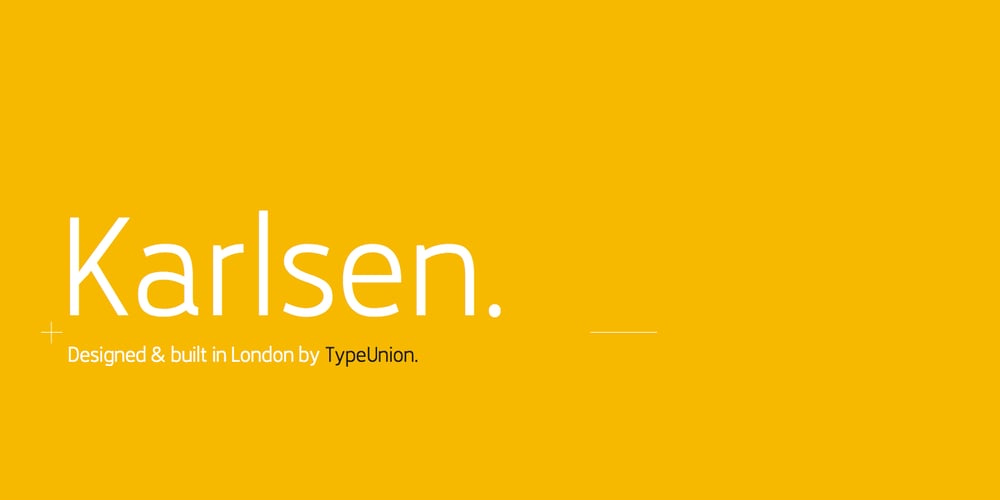
Karlsen Font Family was designed by published by TypeUnion. Karlsen contains 14 styles and family package options. Designed and built in London by TypeUnion, Karlsen is a structured, functional typeface which embraces harmony, flow and versatility. The Karlsen Family is made up of 14 styles, which range from a delicate thin, all the way through to a substantial Extra-bold and each carry a versatility for multiple applications and uses. Karlsen provides extensive language support to provide a flexible, substantial user experience.